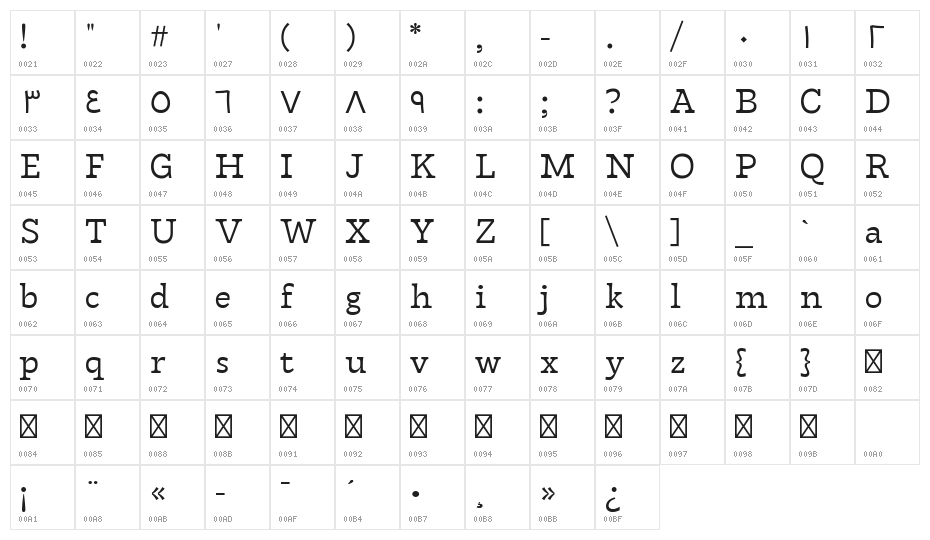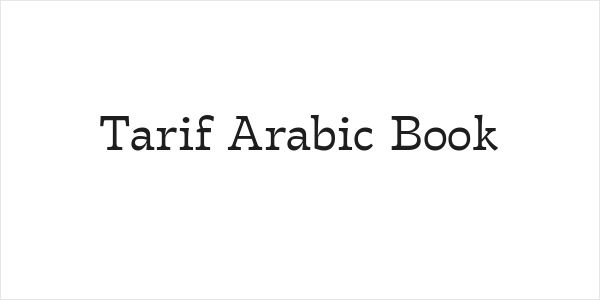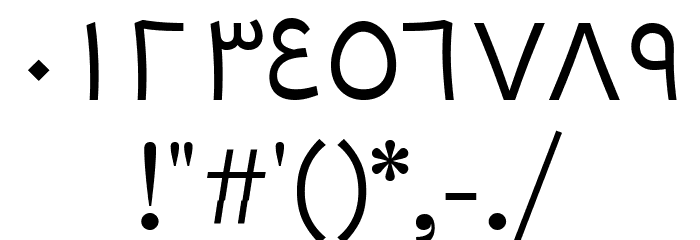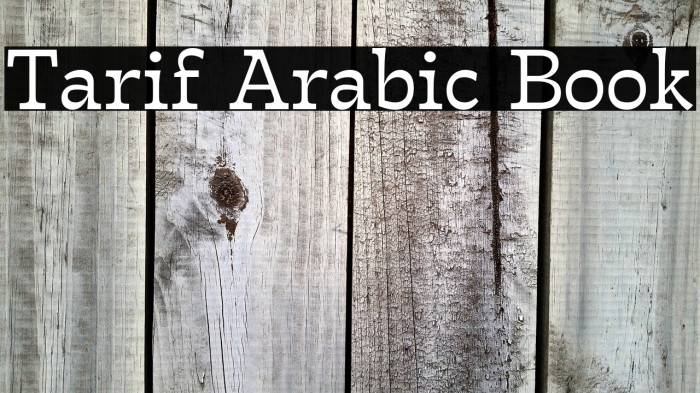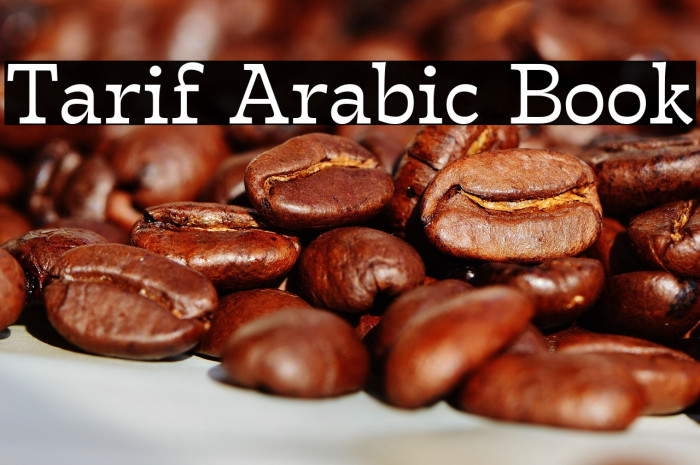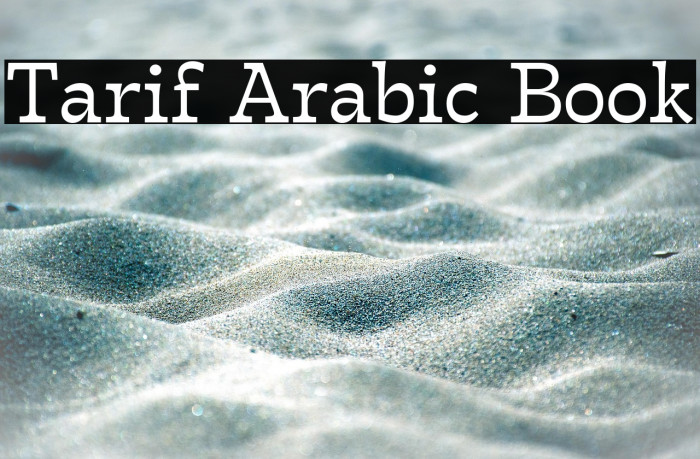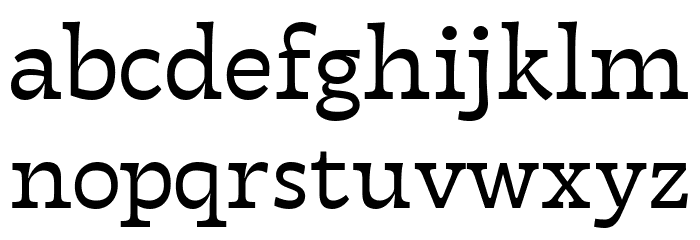
Tarif Arabic Book Font
Tarif Arabic Book Description
This font features a classic serif style with a modern twist, combining traditional elements with a contemporary feel. The uppercase letters are bold and well-defined, while the lowercase letters maintain a consistent flow with slightly rounded edges. The numerals are distinct and easy to read, with a unique style that complements the overall design. Special characters are thoughtfully crafted, adding to the font's versatility. The font's balance between readability and aesthetic appeal makes it suitable for a wide range of applications.